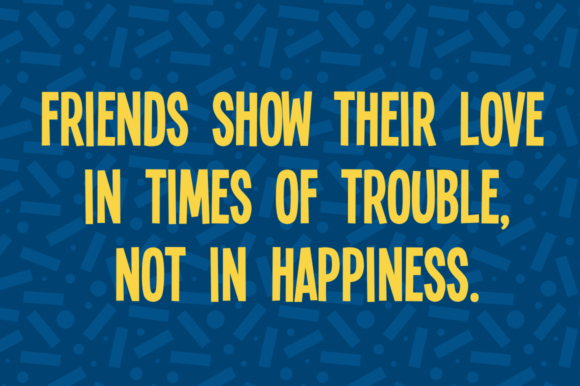
Single Sleeve
About Single Sleeve Font
Single Sleeve is a compelling, bouncy font with tons of style! This sans serif font was made free for download by typographer Vic Fieger.